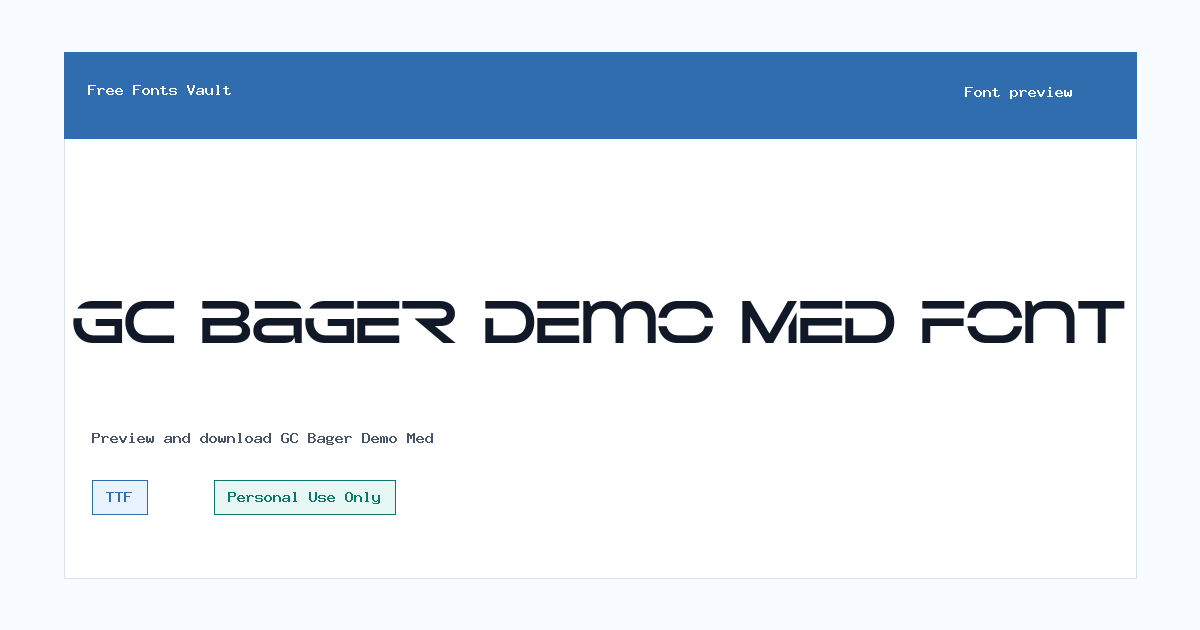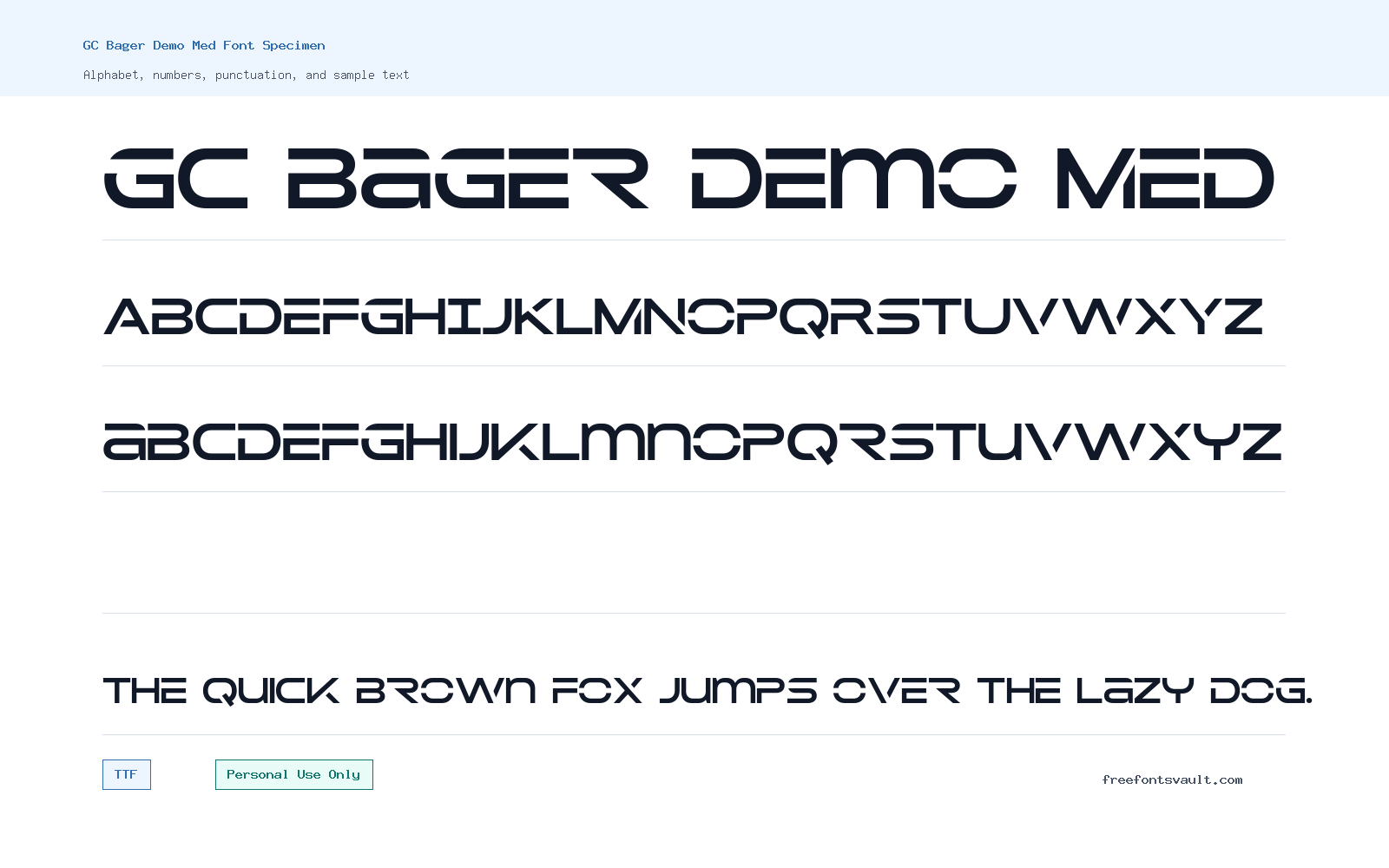
GC Bager Demo Med
- Designer Laila Nuzul Maghfiroh of Glyphonic
GC Bager Demo Med font.
GC Bager Demo Med is a medium-weight demo style from the GC Bager family, a futuristic sans serif by Laila Nuzul Maghfiroh of Glyphonic. It is best approached as a display font for short, high-impact text rather than long reading paragraphs.
GC Bager Demo Med has the clean structure of a sans serif with a sharper, more technical mood. The wider GC Bager family is described by font download sources as a futuristic, geometric, tech-style typeface, and this medium demo weight fits that direction well. Use it when you want text to feel modern, digital, precise, or sci-fi without turning it into a decorative novelty font. Because the file on this page is a TTF font in a 500 weight, it can be useful for testing titles, short labels, hero text, poster lines, web mockups, and identity concepts where a regular weight feels too light but bold feels too heavy.
For design work, start by testing short words in the preview box. Futuristic fonts often look strongest in compact settings such as all-caps headlines, single-word marks, event titles, app splash screens, gaming graphics, tech posters, and social media banners. Try it with generous letter spacing for a cleaner interface feel, or keep spacing tighter for a stronger poster look. If you are exploring logo work, use GC Bager Demo Med for early concepts and style tests, but check the license before using it in any finished brand identity, client presentation, merchandise, advertising, app, or monetized project.
- Medium 500-weight TTF demo font with a futuristic sans serif style.
- Practical for short display text, mockups, posters, tech graphics, and logo concept exploration.
- Associated sources describe the GC Bager family as geometric, sharp, and sci-fi or tech oriented.
- The demo family is reported on font listing pages with a limited glyph count, so preview your exact text before relying on it.
- Tech posters, event graphics, game UI mockups, sci-fi titles, and digital-themed social posts.
- Logo sketches, wordmark experiments, YouTube thumbnails, stream overlays, and app landing-page mockups.
- Short headings where a modern geometric tone matters more than long-form readability.
GC Bager Demo Med is credited to Laila Nuzul Maghfiroh of Glyphonic. The foundry name connected with the font is Glyphonic.
Use GC Bager Demo Med where the text can stay short and bold in presentation. Test uppercase and lowercase forms, numbers, punctuation, and accented characters before finalizing a layout, because demo fonts may not include every glyph needed for multilingual copy or production typography. Pair it with a calm, readable sans serif for body text. A neutral grotesk, humanist sans, or system UI font can keep the page easy to read while GC Bager handles the visual accent. For posters and web mockups, let GC Bager carry the title and use the companion font for descriptions, buttons, captions, and legal text.
What kind of font is GC Bager Demo Med?
It is a medium-weight demo TTF from a futuristic sans serif family. It works best for short display text rather than long paragraphs.
What should I pair with this font?
Pair it with a simple readable sans serif for body text. Let GC Bager Demo Med handle headings, names, or short display lines, and keep longer copy in a more neutral font.